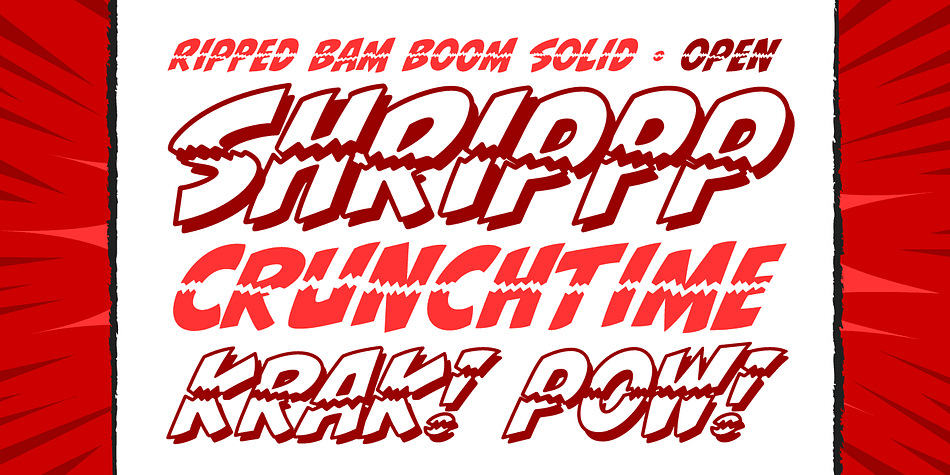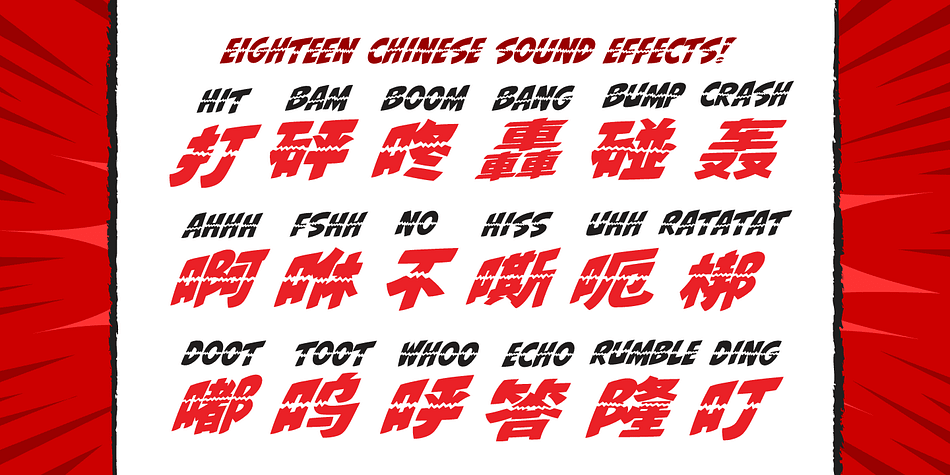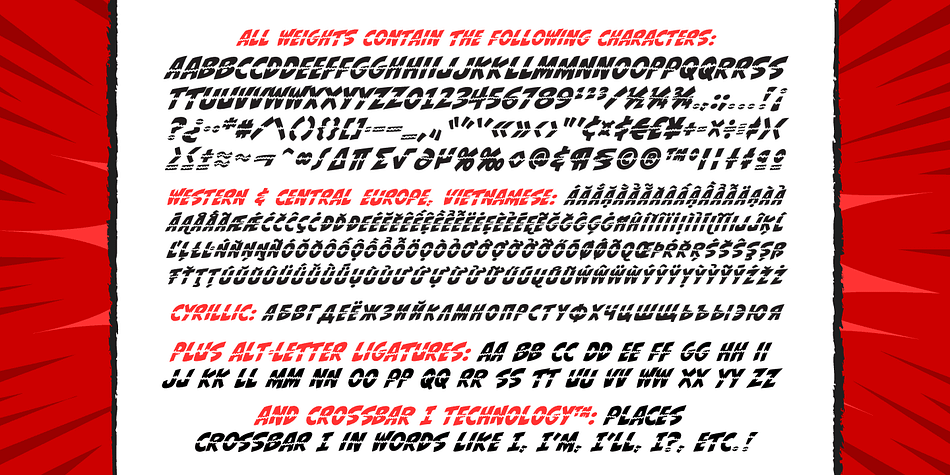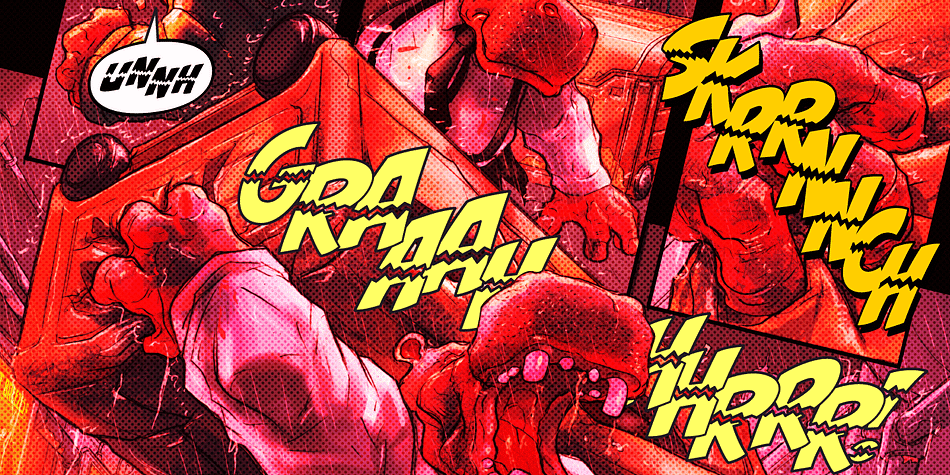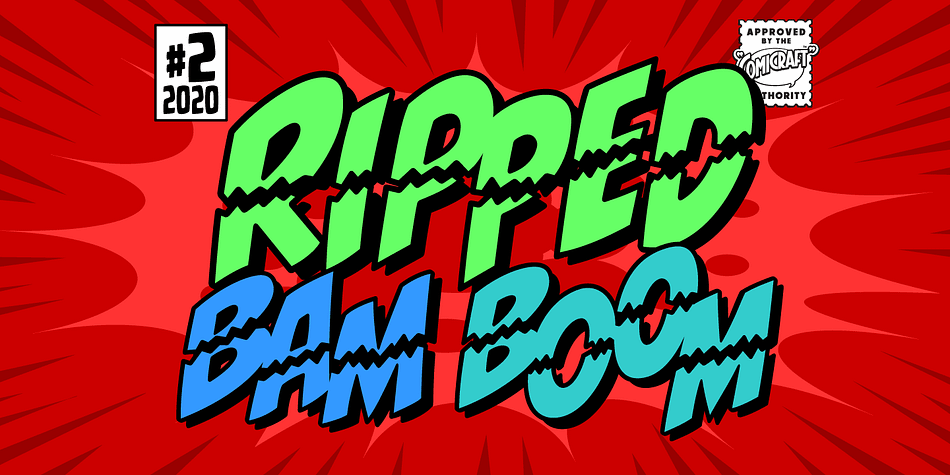
Designed by John Roshell, Ripped Bam Boom is a comic font family. This typeface has two styles and was published by Comicraft.
It’s stronger than the Thing AND the Hulk! It can bench press 500 pound gorillas and send them scurrying into the corner. RIPPED BAM BOOM is a font that can tear through the alphabet faster than you can say “A to Z” and will work your chest, shoulders and triceps and help YOUR characters gain upper-body strength and muscle mass!
Ripped Bam Boom has two weights (Solid & Outline) with alternate uppercase characters, Western & Central Europe, Vietnamese & Cyrillic characters, Crossbar I Technology™ and 18 Chinese Sound Effects.